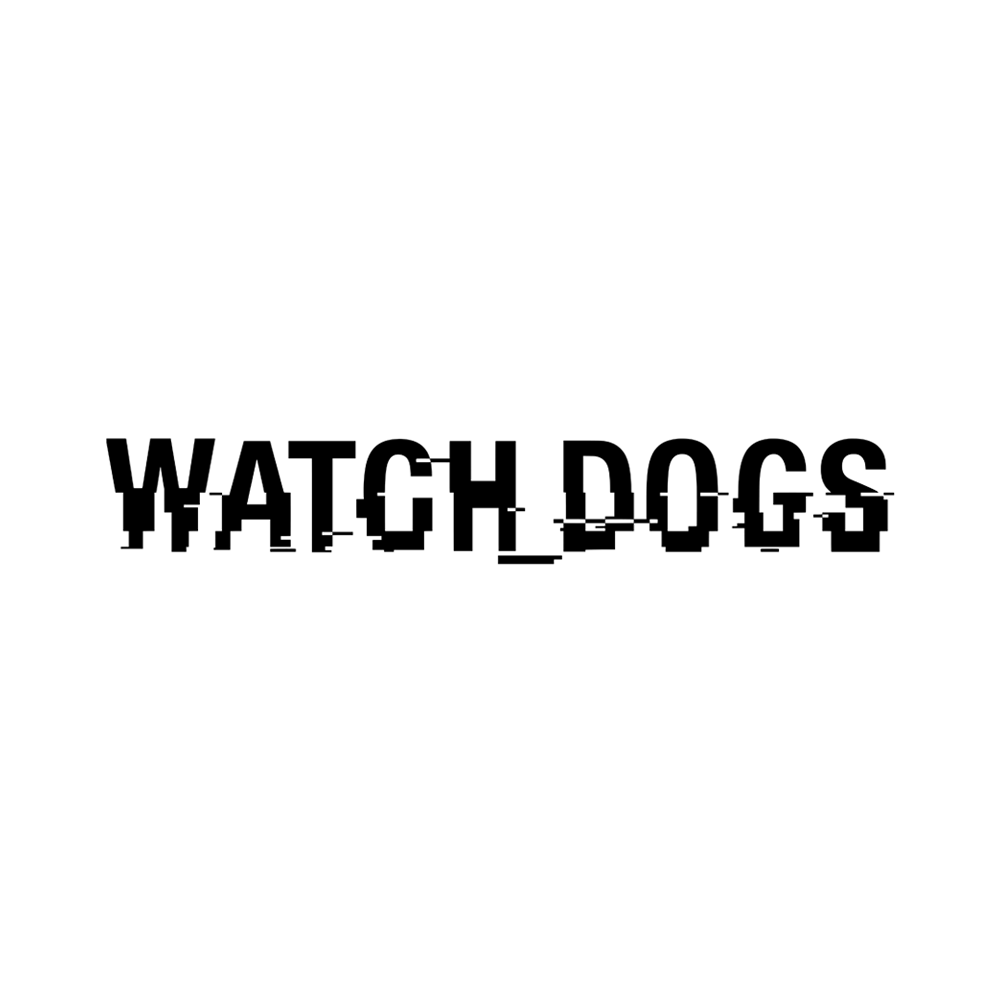
Watch Dogs Font
Action & AdventureWatch Dogs is a Ubisoft video game series about hackers manipulating a city's infrastructure. Players hack devices to achieve goals and advance the story.
Watch Dogs font was recreated as Hacked by David Libeau to mimic the letterforms. The font is free for personal use and commercial use but you have to credit the author "David Libeau".